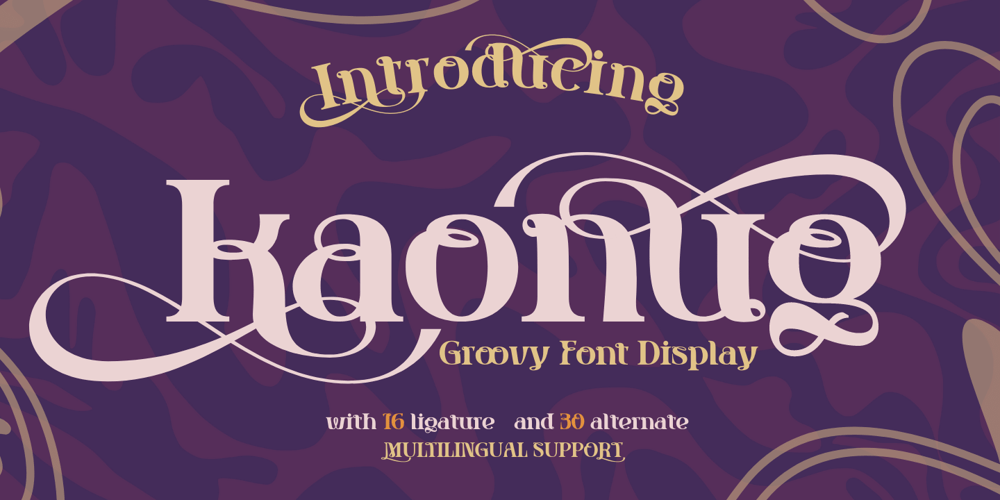
Kaonug Font Family was designed by Rozikan and published by Twinletter. Kaonug contains 1 styles and family package options. This Kaonug display font will make your work stand out. It brings just the right amount of uniqueness and style to whatever project you’re working on, the anatomical shape of the letters makes it unique and artistic. This is a great font to use when creating logos, posters, advertisements, and all your projects or anything else that needs to stand out in a variety of media.What’s Included : Standard glyphs Iso Latin 1 Simple installations We highly recommend using a program that supports OpenType features and Glyphs panels like many Adobe apps and Corel Draw, so you can see and access all Glyph variations. PUA Encoded Characters – Fully accessible without additional design software. Fonts include Multilingual support